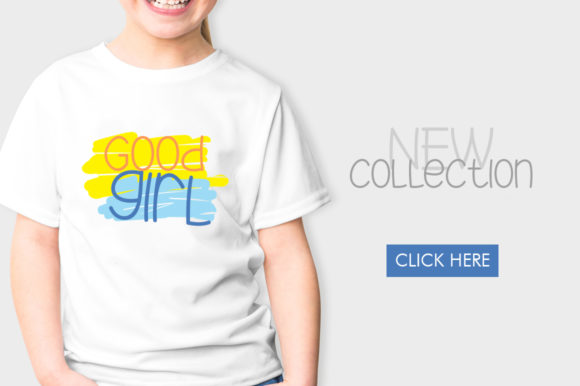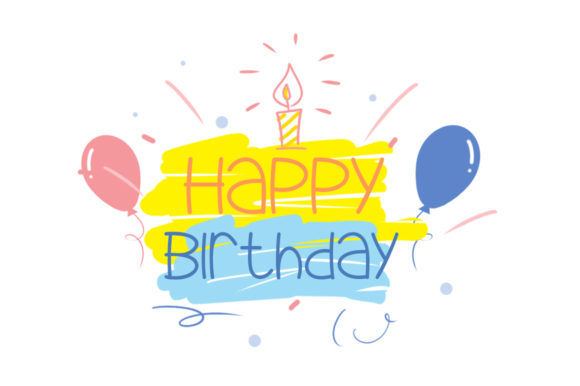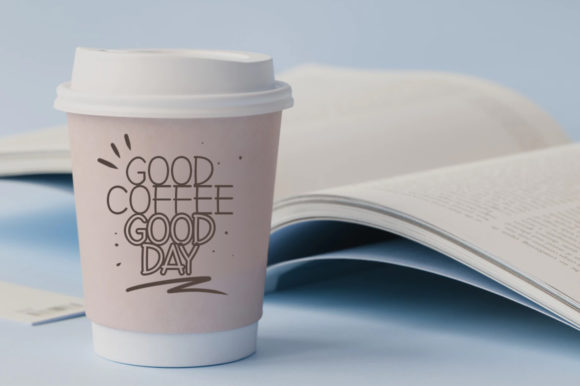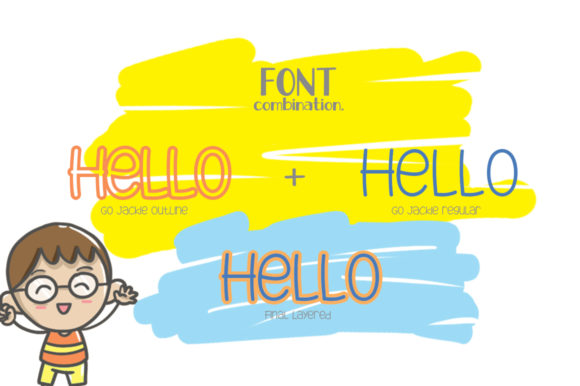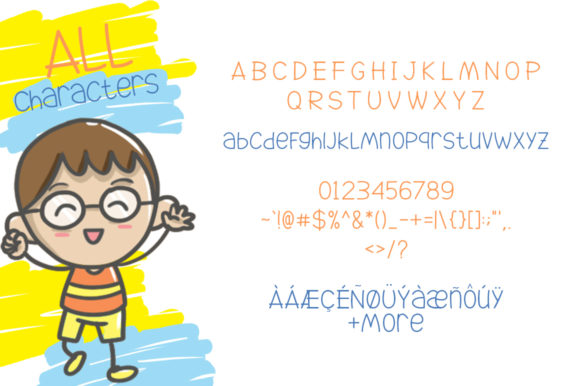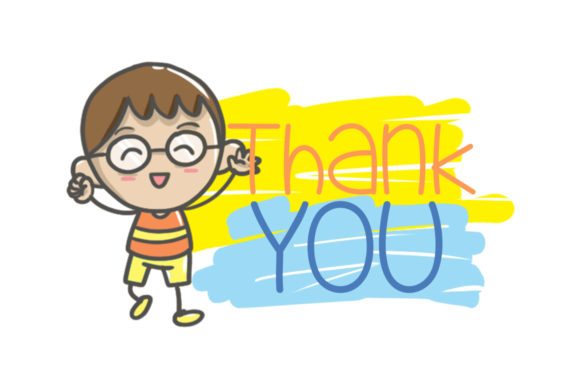
Introducing Go Jackie Font: A Fun Display Typeface for Creative Projects
Are you tired of using the same old fonts for your design projects? Look no further than Go Jackie Font, a fun and versatile display typeface that’s perfect for adding a touch of personality to your work. With its awesome characters in 2 different styles – regular and outline – Go Jackie Font is ideal for a wide range of creative projects, from name cards and posters to logos, magazines, covers, and even large-scale artwork.
The Features of Go Jackie Font
So, what makes Go Jackie Font so special? Here are just a few of its key features:
- Two Styles: Go Jackie Font comes in two different styles: regular and outline. This means you can use it to create a wide range of effects, from bold and eye-catching to delicate and intricate.
- Awesome Characters: The font includes a range of awesome characters that are sure to add a touch of personality to your designs. Whether you’re looking for something fun and playful or elegant and sophisticated, Go Jackie Font has got you covered.
- Highly Versatile: Go Jackie Font is perfect for a wide range of creative projects, including name cards, posters, logos, magazines, covers, and even large-scale artwork.
Go Jackie Font is a dream come true for designers and crafters who are looking for a fun and versatile font to add to their toolkit. Whether you’re a professional designer or a DIY enthusiast, this font is sure to inspire your creativity and help you to create amazing projects.
For designers, Go Jackie Font is perfect for:
- Branding and Identity: Use Go Jackie Font to create eye-catching logos and branding materials that will help your clients to stand out from the crowd.
- Print Design: The font is perfect for print design projects, including posters, flyers, brochures, and more.
- Digital Design: Go Jackie Font can also be used for digital design projects, such as social media graphics, website headers, and more.
For crafters, Go Jackie Font is perfect for:
- DIY Projects: Use Go Jackie Font to add a personal touch to your DIY projects, such as handmade cards, gift tags, and more.
- Crafting: The font is perfect for crafting projects, including scrapbooking, journaling, and more.
Tips for Using Go Jackie Font
Here are a few tips for getting the most out of Go Jackie Font:
- Experiment with Different Styles: Don’t be afraid to experiment with different styles and combinations of styles to find the look that works best for your project.
- Play with Size and Color: Go Jackie Font looks great in a range of sizes and colors, so don’t be afraid to play around and find the combination that works best for your project.
- Use it with Other Fonts: Go Jackie Font pairs well with a range of other fonts, so feel free to get creative and experiment with different combinations.
In conclusion, Go Jackie Font is a fun and versatile display typeface that’s perfect for designers and crafters who are looking to add a touch of personality to their projects. With its awesome characters in 2 different styles, this font is highly versatile and can be used for a wide range of creative projects. Whether you’re a professional designer or a DIY enthusiast, Go Jackie Font is sure to inspire your creativity and help you to create amazing projects.